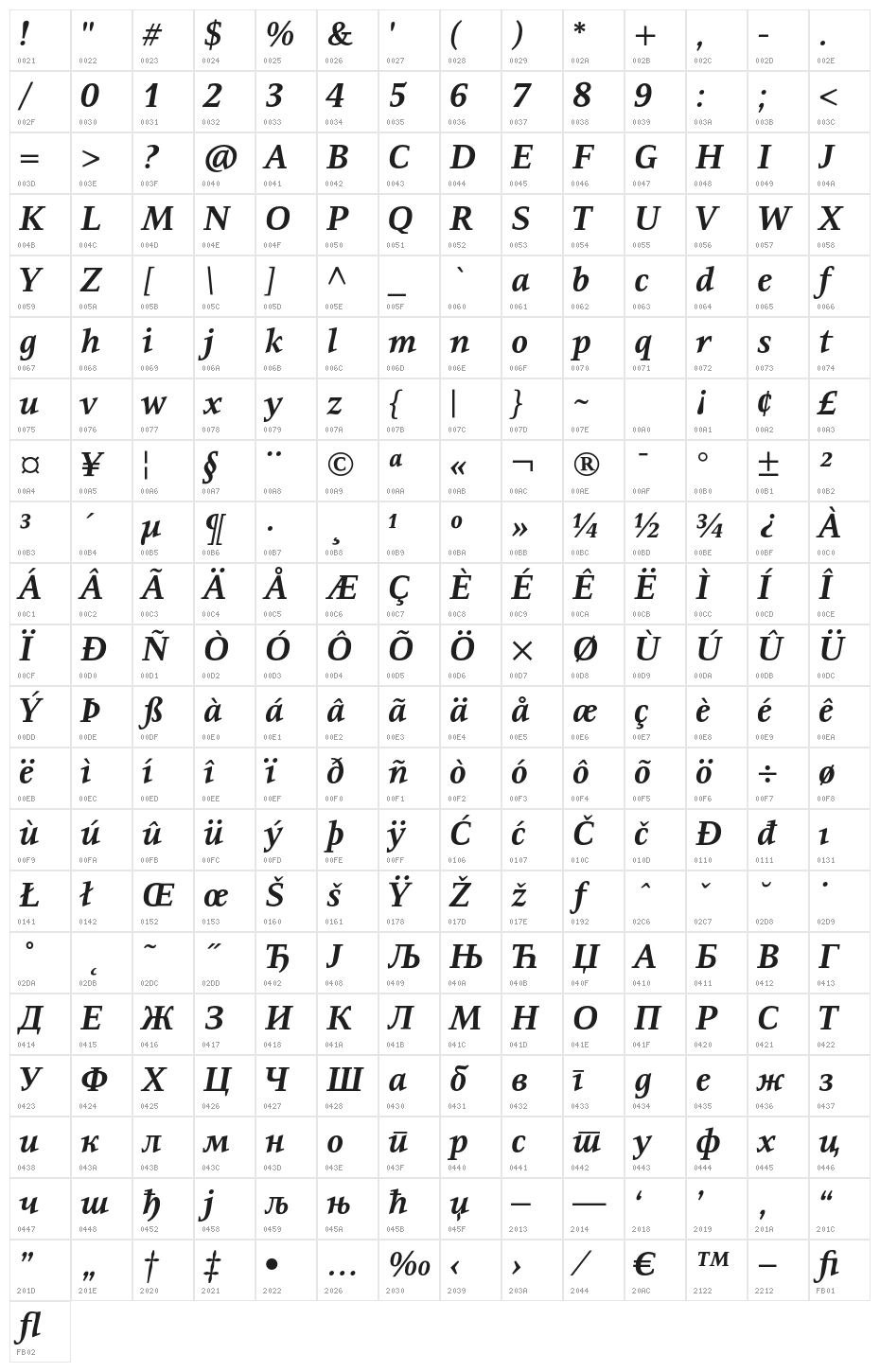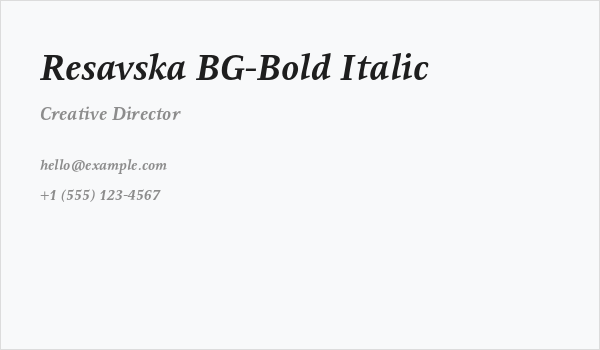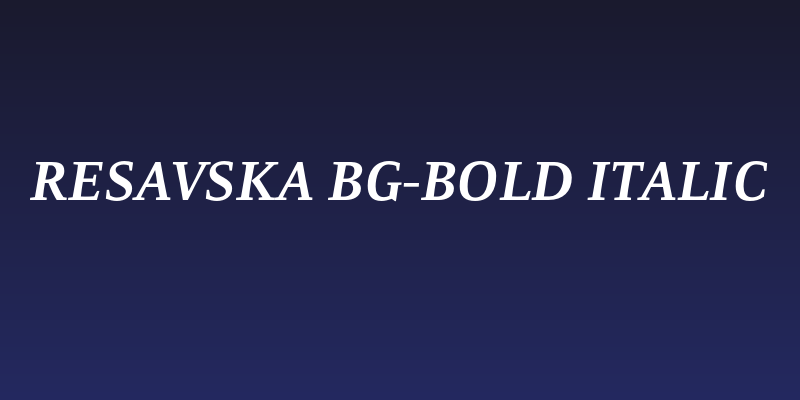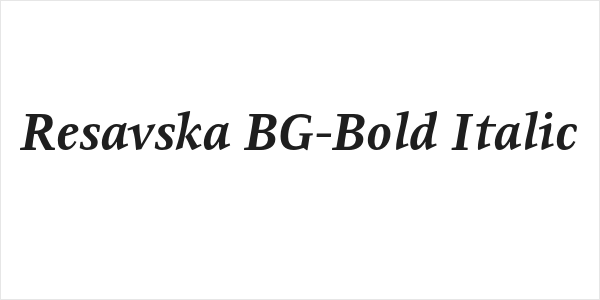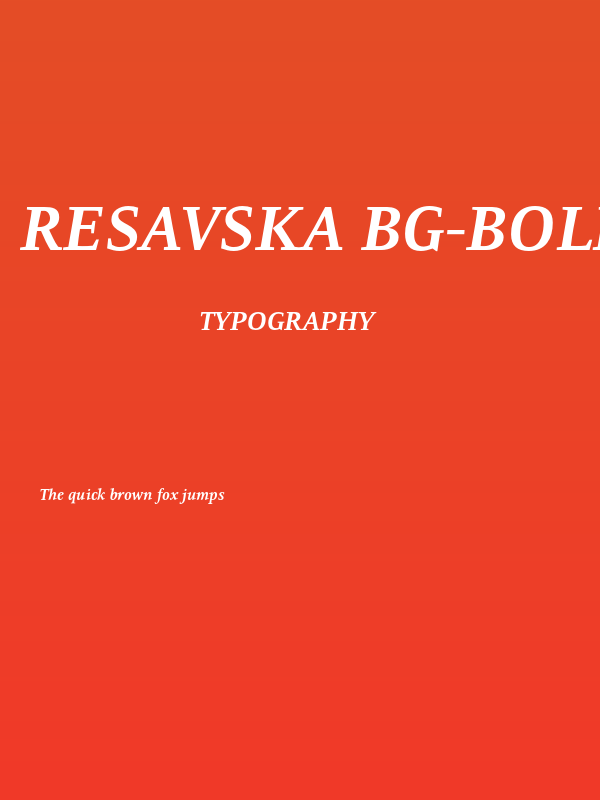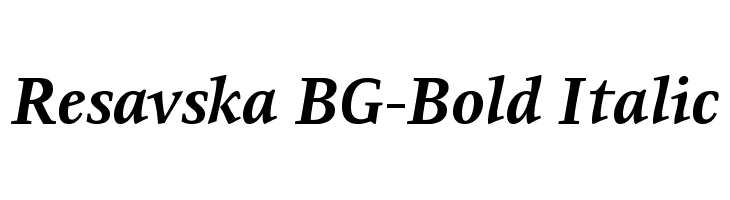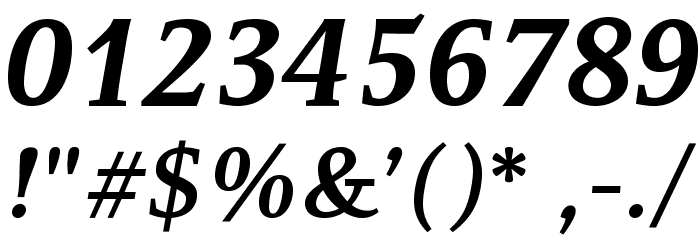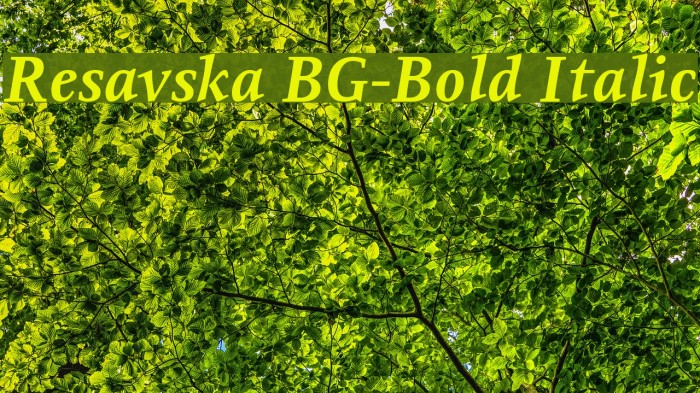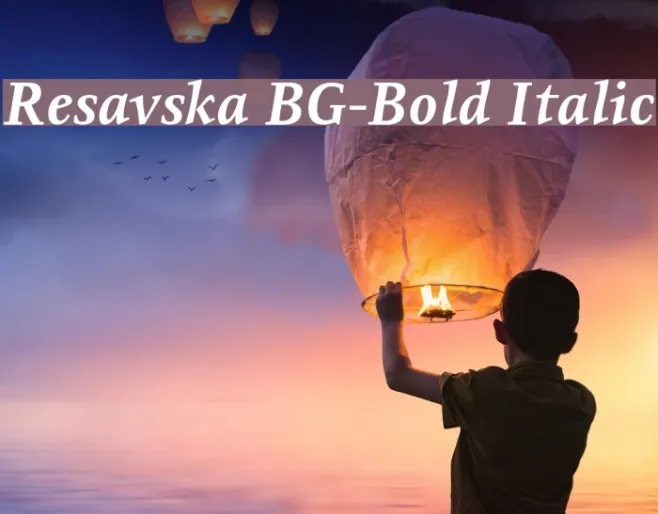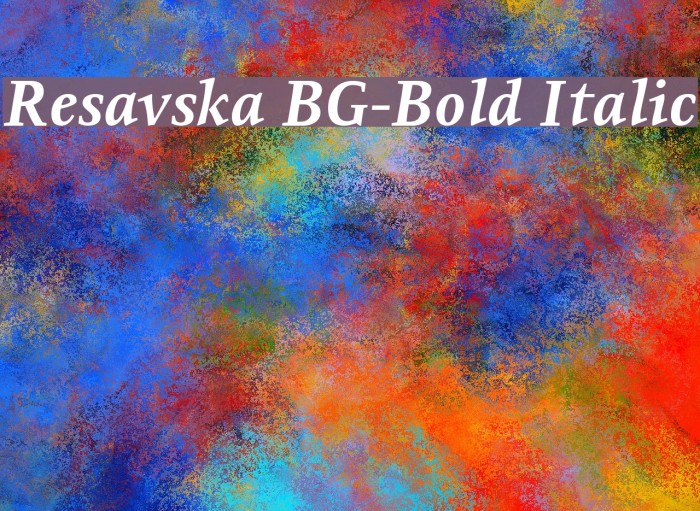
Resavska BG-Bold Italic Font
Resavska BG-Bold Italic Description
This font exhibits a classic and elegant style with a bold and italicized form. The serifs are pronounced, providing a traditional and formal appearance. The italic slant adds a dynamic and sophisticated touch, making it suitable for both formal and creative applications. The characters are well-proportioned with a consistent weight, ensuring readability and aesthetic appeal. The numerals and special characters maintain the same stylistic features, ensuring uniformity across different types of content.
| Overall Style | Classic |
| Use Case | Headlines, Branding, Invitations |
| Proposed Projects | Ideal for formal invitations, editorial headlines, book covers, and branding materials that require a touch of sophistication. |